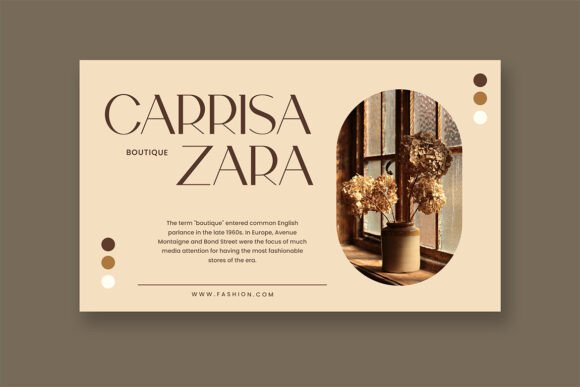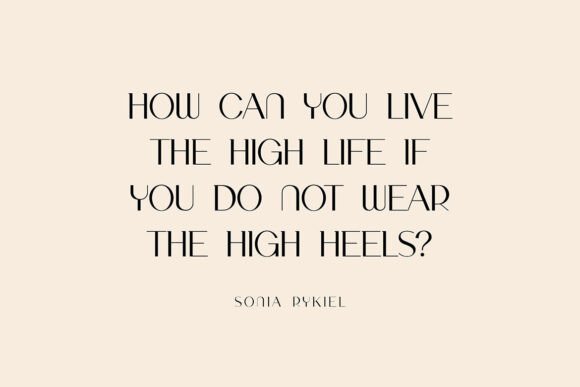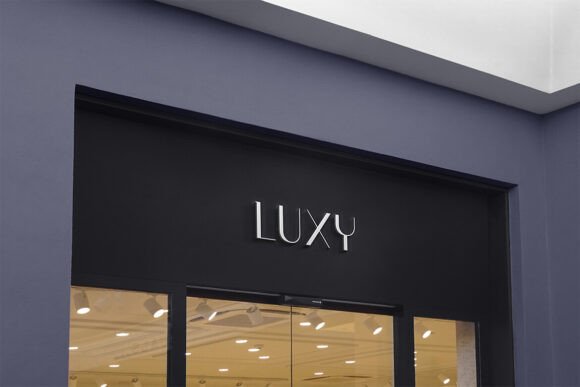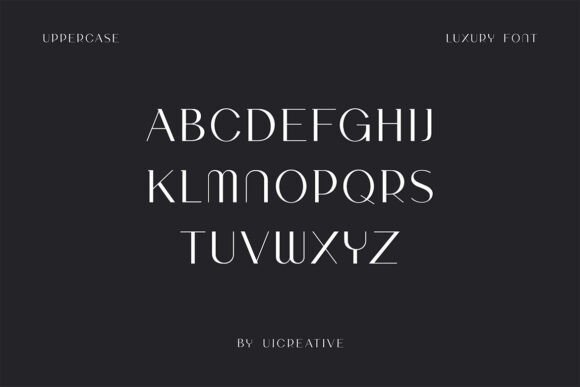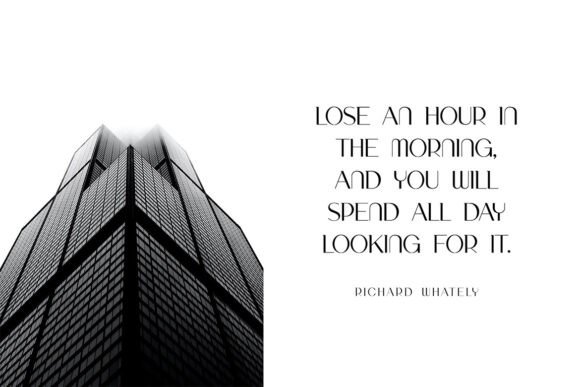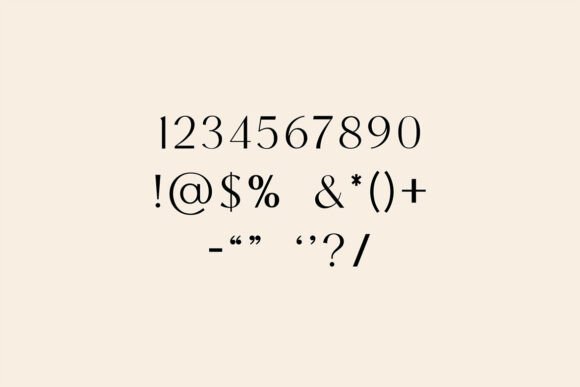
Introduction to Ezme Font
Ezme is an elegant sans serif font, that features a very delicate and classy look.
Not too thin and not too thick, balanced and varied, Ezme was designed to enhance the beauty of your projects .
Key Features of Ezme Font
Why Choose Ezme Font?
Ezme Font offers exceptional quality and versatility, making it a valuable addition to your design toolkit. Whether you’re creating for personal projects or commercial use, Ezme Font delivers professional results.